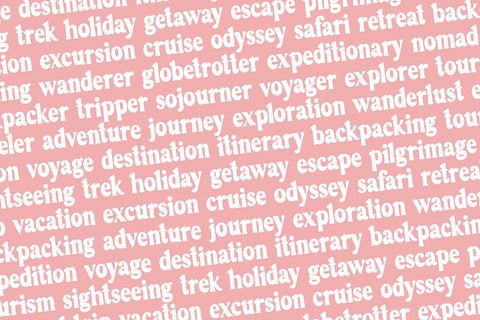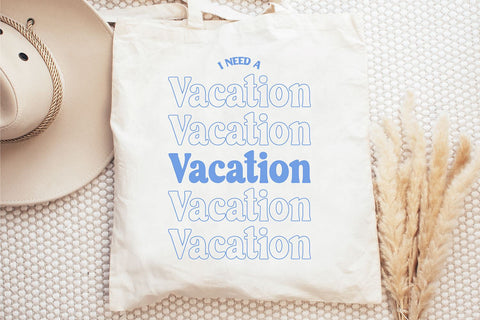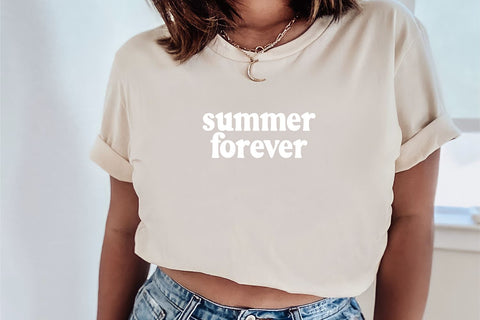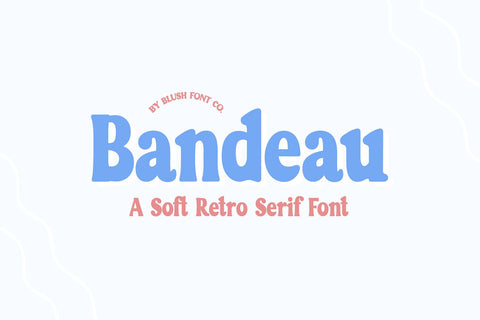
Bandeau Soft Rounded Retro Serif Font
"Bandeau" is a bold retro font.
This font is a trendy retro display font that is perfect for social media or crafty projects. Use it for branding, crafts for decor, invitations, and more!